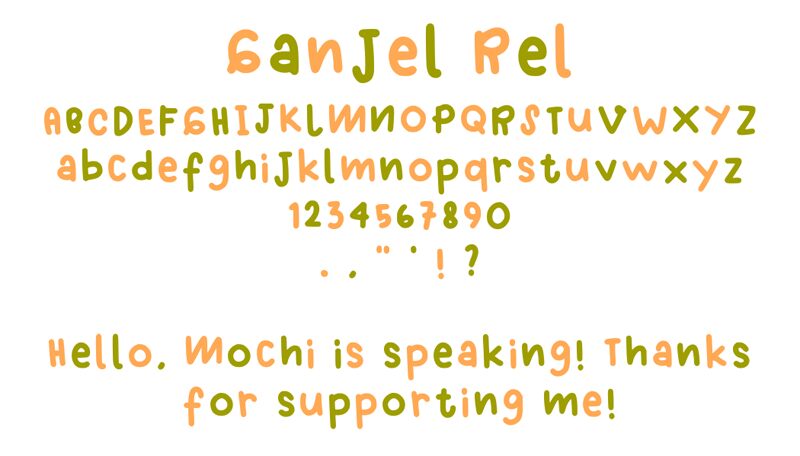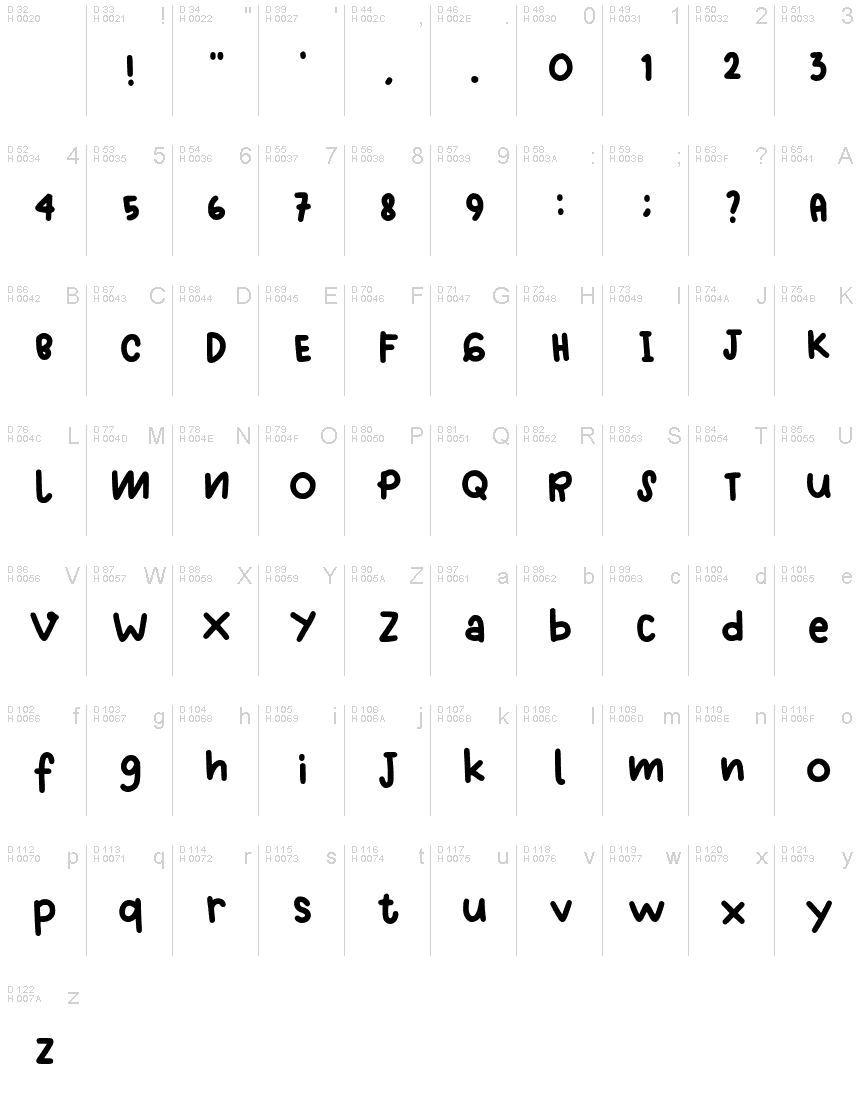
Ganjel Rel Regular
Ganjel Rel is a light and airy handwritten font, designed by marmwut. It has an organic, free-flowing style that works well for projects ranging from wedding invitations to logo designs. Its unique, carefree feel makes it a great choice for adding personality to any design.